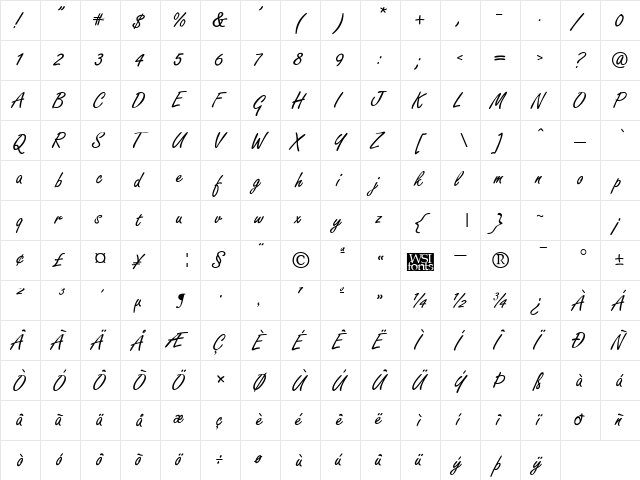
Freelance Script Regular
Design Context for Freelance Script Typeface
Freelance Script brings a calligraphic fluidity to the page — its connecting strokes and expressive curves give it an unmistakably human quality.
Font Pairing: Combine Freelance Script with a simple geometric sans for maximum contrast — the tension between flowing curves and clean structure is a classic typographic pairing.
Pro Tip: Pair Freelance Script with a clean sans-serif for supporting text. The contrast between fluid script and geometric structure creates an elegant typographic hierarchy.